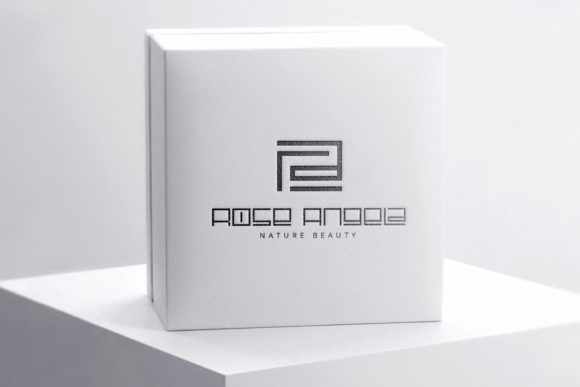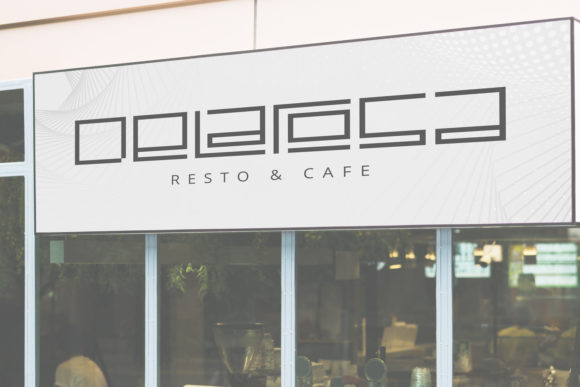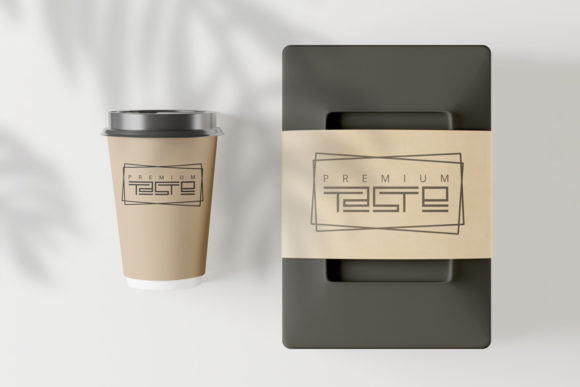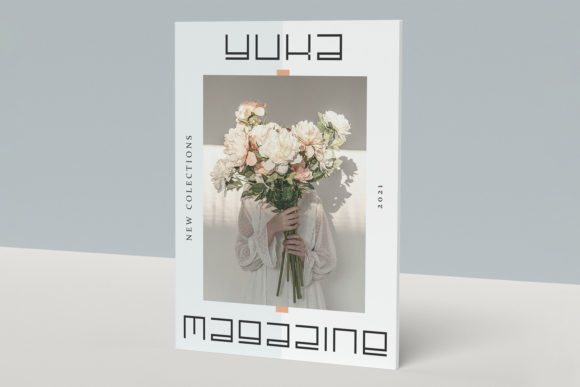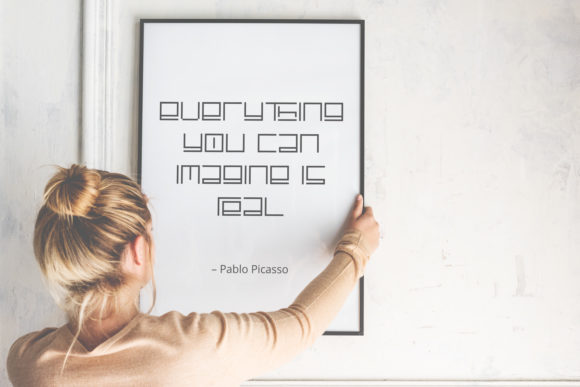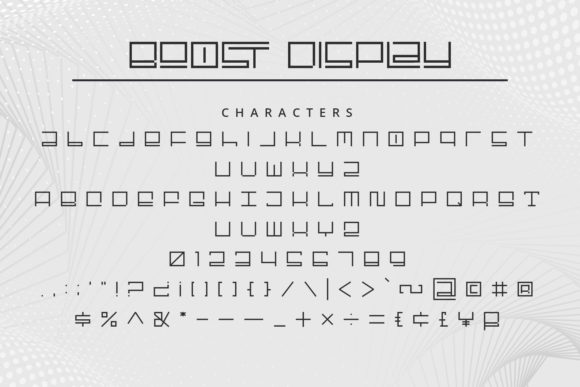
Unlock Endless Design Possibilities with Boost Display Font
In the realm of digital and print design, the right font can elevate your project from ordinary to extraordinary. For those seeking a modern, cool, or futuristic vibe, the Boost Display font is an excellent choice. This versatile display font is perfect for a wide range of design ideas, from sleek and minimalistic concepts to bold and eye-catching posters, flyers, and prints. In this article, we’ll explore the features and benefits of Boost Display, and how it can enhance your designs.
What is Boost Display Font?
Boost Display is a specially crafted display font designed to make a statement. Its unique and futuristic style gives it an edge over more traditional fonts, making it ideal for designers looking to add a modern twist to their work. Whether you’re creating a logo, a poster, a flyer, or any other printed material, Boost Display can help you achieve a professional and stylish look.
Key Features of Boost Display Font
- Modern and Futuristic Style: Boost Display boasts a sleek and contemporary design that instantly adds a cool factor to any project.
- Versatility: This font is incredibly versatile, suitable for a variety of design applications, from digital screens to print materials.
- Easy to Read: Despite its futuristic look, Boost Display remains clear and legible, making it perfect for headlines and titles.
- Customizable: Experiment with different sizes, colors, and effects to make Boost Display truly unique to your design.
Endless Design Possibilities with Boost Display
The true power of Boost Display lies in its adaptability. Here are some design ideas where Boost Display can shine:
- Posters and Flyers: Create stunning posters and flyers for events, promotions, or product launches with a font that grabs attention.
- Logos and Branding: Establish a strong brand identity with a modern and memorable logo.
- Digital Screens: Use Boost Display in digital signage, presentations, or social media graphics to add a professional touch.
- Print Materials: Enhance business cards, brochures, and catalogs with a font that exudes quality and style.
Tips for Using Boost Display Effectively
To maximize the impact of Boost Display in your designs, consider the following tips:
- Pair with Complementary Fonts: Combine Boost Display with simpler fonts for body text to create visual harmony.
- Experiment with Colors: Take advantage of Boost Display’s versatility by trying out different colors and gradients.
- Play with Sizes: Use varying font sizes to create a hierarchy of information and add depth to your design.
Boost Display font is a powerful tool for designers and crafters looking to add a modern, cool, or futuristic touch to their projects. With its unique style, versatility, and ease of use, Boost Display offers endless possibilities for creative expression. Whether you’re working on a digital project or a print material, this font is sure to elevate your design to new heights. So why wait? Explore the limitless potential of Boost Display and take your designs to the next level.